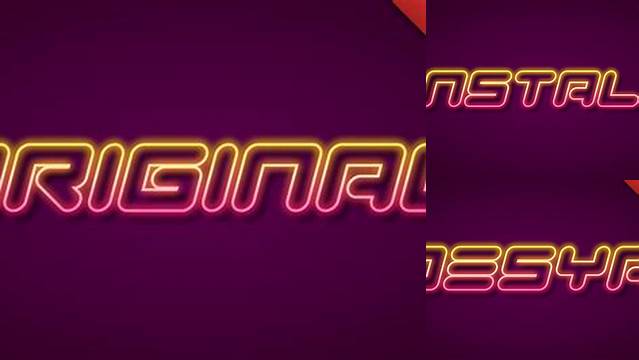
Free Neon Font Generator: Create Striking Text Effects
Are you looking to add a vibrant, eye-catching touch to your designs? Look no further than a free font generator neon! Neon text effects have become increasingly popular, lending a retro yet futuristic vibe to everything from logos and posters to social media graphics and websites. In this comprehensive guide, we'll explore the world of neon font generators, discuss their benefits, and provide tips on how to use them effectively. Whether you're a seasoned designer or just starting, you'll find everything you need to create stunning neon text effects that will captivate your audience. So, let's dive in and discover how to transform ordinary text into extraordinary displays of light and color!
What is a Neon Font Generator?
At its core, a neon font generator is a tool that allows you to create text that mimics the appearance of traditional neon signs. These generators typically offer a range of customizable options, including font styles, colors, glow intensity, and background effects. The beauty of these tools lies in their simplicity; you don't need to be a graphic design expert to produce professional-looking results. Whether you're aiming for a classic retro neon aesthetic or a more modern, stylized look, a free font generator neon can provide the versatility you need.
When you use a free font generator neon, you're essentially simulating the glowing effect of neon lights using digital techniques. This involves layering colors, adding glows, and sometimes incorporating shadows to create the illusion of illuminated glass tubes. The best generators offer a high degree of control over these elements, allowing you to fine-tune the effect to match your specific vision. For example, you might want a vibrant, saturated glow for a nightclub poster or a softer, more subtle neon effect for a website header. The possibilities are virtually endless.
One of the key advantages of using a neon font generator is the speed and convenience it offers. Creating a realistic neon effect manually in design software like Photoshop or Illustrator can be time-consuming and require advanced skills. With a neon font generator, you can achieve a similar result in a fraction of the time, often with just a few clicks. This makes these tools invaluable for designers who need to produce quick mockups, experiment with different styles, or simply add a touch of flair to their projects without spending hours on complex editing.
Moreover, the accessibility of free font generator neon options is a significant benefit. Many online platforms offer these tools without requiring any software downloads or subscriptions. This means you can start creating neon text effects instantly, from any device with an internet connection. This is particularly useful for designers who need to work on the go or collaborate with others who may not have access to the same software.
In summary, a free font generator neon is a powerful and user-friendly tool that allows you to create stunning text effects quickly and easily. Whether you're a professional designer or a hobbyist, these generators can help you add a unique and eye-catching touch to your projects. From logos and posters to social media graphics and websites, the possibilities are endless when you harness the power of neon text effects.
Why Use a Free Font Generator Neon?
There are numerous compelling reasons to use a free font generator neon for your design projects. The most obvious benefit is the striking visual impact that neon text effects can create. Neon signs have a timeless appeal, evoking a sense of nostalgia while also feeling modern and edgy. By incorporating neon text into your designs, you can instantly grab attention and add a touch of personality and flair.
One of the primary reasons designers turn to a free font generator neon is the ease of use. Traditional methods of creating neon effects in design software can be complex and time-consuming, often requiring a high level of skill and experience. Neon font generators, on the other hand, streamline the process, allowing you to achieve professional-looking results with minimal effort. Most generators feature intuitive interfaces and simple controls, making it easy to customize your text and create the perfect neon effect in just a few clicks.
Another significant advantage of using a neon font generator is the cost-effectiveness. Hiring a professional designer to create custom neon effects can be expensive, especially if you need multiple variations or iterations. Free font generators offer a budget-friendly alternative, allowing you to experiment with different styles and effects without breaking the bank. This is particularly beneficial for small businesses and startups that may have limited resources but still want to create visually appealing marketing materials.
Furthermore, a free font generator neon provides a wide range of customization options. You can typically adjust the font style, color, glow intensity, and background effects to create a truly unique look. Some generators even allow you to add additional elements, such as shadows or outlines, to further enhance the neon effect. This level of customization ensures that you can tailor your text to perfectly match your brand identity and the overall aesthetic of your project.
In addition to the visual appeal and ease of use, neon font generators can also save you valuable time. Time is often a critical factor in design projects, and the ability to quickly create stunning neon text effects can be a game-changer. Instead of spending hours manually creating a neon effect in Photoshop or Illustrator, you can use a font generator to achieve the same result in a matter of minutes. This allows you to focus on other aspects of your project and meet deadlines more efficiently.
The versatility of a free font generator neon is another key benefit. Neon text effects can be used in a variety of applications, from logos and branding materials to social media graphics and website headers. Whether you're designing a poster for a nightclub, creating a banner for an online store, or adding a touch of retro flair to your personal blog, neon text can help you make a statement and stand out from the crowd.
Finally, the accessibility of these tools is a major advantage. Many free font generator neon options are available online, requiring no software downloads or installations. This means you can use them from any device with an internet connection, making them incredibly convenient for designers who need to work on the go or collaborate with others. The ease of access and user-friendly nature of these generators make them an ideal choice for both experienced designers and beginners alike.
How to Use a Free Font Generator Neon: A Step-by-Step Guide
Using a free font generator neon is surprisingly straightforward. Most of these tools are designed with user-friendliness in mind, making it easy for anyone to create stunning neon text effects. Here's a step-by-step guide to help you get started:
Choose a Font Generator: The first step is to select a free font generator neon that suits your needs. There are many options available online, each with its own set of features and customization options. Some popular choices include [mention specific examples of font generators]. Take some time to explore different generators and find one that offers the fonts, effects, and interface that you prefer. Look for generators that offer a wide variety of font styles, color options, and customization settings to ensure you can create the perfect neon effect for your project.
Enter Your Text: Once you've chosen a generator, the next step is to enter the text you want to transform into a neon sign. Most generators have a text input field where you can type in your desired message. Consider the length of your text and how it will fit within your design. Shorter phrases and words tend to work best with neon effects, as they are easier to read and have a greater visual impact. Make sure to double-check your spelling and grammar before proceeding, as errors will be amplified by the neon effect.
Select a Font: After entering your text, you'll need to choose a font style. A good free font generator neon will offer a variety of fonts to choose from, ranging from classic retro styles to more modern and stylized options. Consider the overall tone and message of your design when selecting a font. For a vintage feel, opt for a script or serif font. For a more contemporary look, choose a sans-serif font with clean lines. Experiment with different fonts to see which one best complements the neon effect and your overall design.
Customize Colors: One of the most exciting aspects of using a neon font generator is the ability to customize the colors. Most generators allow you to choose the color of the text itself, as well as the color of the glow effect. Think about the color scheme of your project and select colors that will stand out and create a visually appealing contrast. Bright, vibrant colors like neon pink, blue, green, and yellow are popular choices for neon effects, but don't be afraid to experiment with other hues to achieve a unique look. You can also consider using multiple colors to create a gradient or multi-colored neon effect.
Adjust Glow Intensity: The intensity of the glow is a crucial factor in creating a realistic neon effect. A free font generator neon will typically offer settings to adjust the glow intensity, allowing you to control how bright and diffused the light appears. A strong glow can create a dramatic, eye-catching effect, while a softer glow can lend a more subtle and sophisticated touch. Experiment with different glow intensities to find the perfect balance for your design. Consider the context in which the text will be displayed; a brighter glow may be suitable for a poster or advertisement, while a softer glow may be more appropriate for a website header or logo.
Add Background Effects (Optional): Some neon font generators offer the option to add background effects, such as shadows, outlines, or even simulated brick walls or dark backgrounds to enhance the neon effect. These effects can help to create a more realistic and immersive feel. If your generator offers background effects, experiment with different options to see how they impact the overall look of your text. Keep in mind that the background should complement the text, not distract from it. A simple, dark background often works best, as it allows the neon text to truly pop.
Preview and Download: Once you've customized your text to your liking, most generators will allow you to preview the final result. Take a close look at the preview to ensure that everything looks as you intended. If you're not satisfied with the result, you can go back and make adjustments. Once you're happy with the final product, you can typically download the neon text as an image file (e.g., PNG or JPG). Choose a file format that is appropriate for your intended use. PNG is often the best choice for graphics with transparency, while JPG is suitable for images with complex colors and gradients.
Use in Your Projects: Finally, you can incorporate your newly created neon text into your design projects. Whether you're creating a logo, poster, social media graphic, or website header, neon text can add a unique and eye-catching touch. Experiment with different placements and sizes to see how the text looks within your overall design. Remember to consider the overall tone and message of your project and ensure that the neon text complements your other design elements.
By following these steps, you can effectively use a free font generator neon to create stunning text effects that will elevate your designs and captivate your audience. The key is to experiment with different fonts, colors, and settings to find the perfect combination for your specific project.
Tips for Creating Effective Neon Text Effects
Creating captivating free font generator neon effects involves more than just selecting a font and applying a glow. To truly make your neon text stand out, consider these essential tips:
First and foremost, choose the right font. Not all fonts are created equal when it comes to neon effects. Fonts with clean lines and a consistent stroke weight tend to work best. Avoid overly decorative or intricate fonts, as the neon effect can sometimes make them appear cluttered and difficult to read. Simple sans-serif fonts and classic script fonts are often excellent choices. When selecting a font, think about the overall aesthetic you're trying to achieve. A bold, blocky font can convey a sense of strength and modernity, while a flowing script font can evoke a vintage or romantic feel. The right font will enhance the neon effect and make your text more visually appealing.
Next, master color combinations. The colors you choose for your neon text and its glow can have a significant impact on the overall effect. Bright, contrasting colors are generally the most effective for creating a striking neon look. Consider using classic neon color combinations, such as red and yellow, blue and green, or pink and purple. However, don't be afraid to experiment with less traditional color pairings to create a unique and eye-catching design. When selecting colors, think about the mood and message you want to convey. Warm colors like red and orange can create a sense of energy and excitement, while cool colors like blue and green can evoke a feeling of calm and tranquility. The right color combination can make your neon text pop and draw attention to your message.
Glow intensity is another crucial element to consider. The intensity of the glow can dramatically affect the realism and impact of your neon text. A very strong glow can create a vibrant, eye-catching effect, but it can also make the text appear blurry or overwhelming if not used carefully. A softer glow, on the other hand, can create a more subtle and sophisticated look. Experiment with different glow intensities to find the perfect balance for your design. Consider the context in which the text will be displayed. For a large poster or advertisement, a stronger glow may be appropriate, while for a smaller graphic or website header, a softer glow may be more effective.
Background selection is equally important. The background you choose for your neon text can significantly impact its visibility and overall appeal. A dark background, such as black or dark gray, typically works best, as it allows the neon colors to truly pop. However, you can also experiment with other background colors and textures to create a unique effect. Just make sure that the background doesn't compete with the text for attention. Avoid backgrounds that are too busy or distracting, as they can make your neon text difficult to read. A simple, uncluttered background will help your text stand out and make a strong visual statement.
Add subtle effects for depth. While the neon effect itself is eye-catching, adding subtle touches like shadows or outlines can enhance the overall realism and visual appeal of your text. A subtle shadow can create the illusion of depth, making the text appear to float above the background. An outline can help to define the shape of the letters and make them stand out more clearly. Experiment with different effects to see how they enhance your neon text. Just be careful not to overdo it; too many effects can make your text look cluttered and unprofessional. The goal is to add subtle enhancements that complement the neon effect, not distract from it.
Finally, ensure readability. While a free font generator neon can create visually stunning text effects, it's crucial to ensure that your text remains legible. Choose a font size and style that is easy to read, even with the neon effect applied. Avoid using overly small fonts or fonts with thin strokes, as they can become difficult to read when the glow is added. Test your text on different devices and screen sizes to ensure that it is legible in all contexts. After all, the purpose of your text is to communicate a message, so readability should always be a top priority.
By following these tips, you can create effective neon text effects that will captivate your audience and elevate your designs. Remember, the key is to experiment with different fonts, colors, glow intensities, and backgrounds to find the perfect combination for your specific project.
A free font generator neon is a powerful tool for adding a touch of vibrancy and retro-futuristic flair to your designs. Whether you're creating logos, posters, social media graphics, or website headers, neon text effects can help you grab attention and make a statement. By understanding the basics of neon font generators and following the tips outlined in this guide, you can create stunning text effects that will elevate your projects and captivate your audience.
The accessibility and ease of use of free font generator neon options make them a valuable resource for both professional designers and hobbyists. You don't need to be an expert in graphic design to create impressive neon text effects; with just a few clicks, you can transform ordinary text into extraordinary displays of light and color. The ability to customize fonts, colors, glow intensities, and backgrounds allows you to tailor your neon text to perfectly match your brand identity and the overall aesthetic of your project.
From the ease of use and cost-effectiveness to the versatility and visual impact, the benefits of using a neon font generator are numerous. Whether you're looking to add a touch of nostalgia, create a modern and edgy look, or simply make your designs stand out from the crowd, neon text effects are a fantastic choice. The key is to experiment with different options and find the combination that best suits your needs.
In conclusion, a free font generator neon is an invaluable tool for any designer looking to add a unique and eye-catching element to their work. So, go ahead, explore the world of neon text effects, and unleash your creativity! With the right font, colors, and customization settings, you can create designs that truly shine.